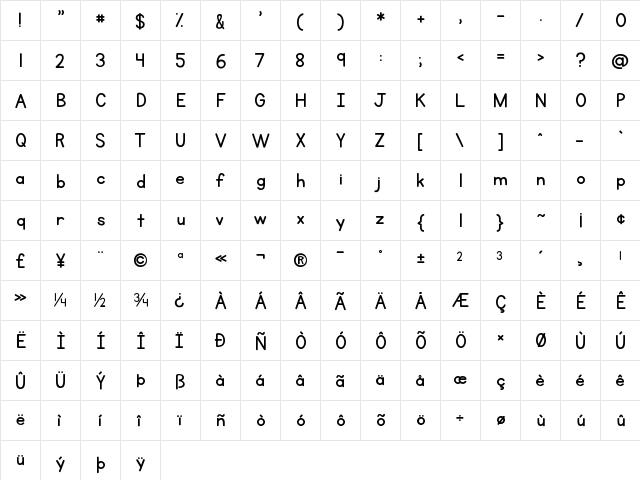
KG Primary Penmanship Alt Regular
| Foundry | Kimberly Geswein |
| Designer | Kimberly Geswein |
KG Primary Penmanship Alt takes a measured approach to typography — its balanced proportions and neutral character make it a reliable workhorse for both digital and print work.